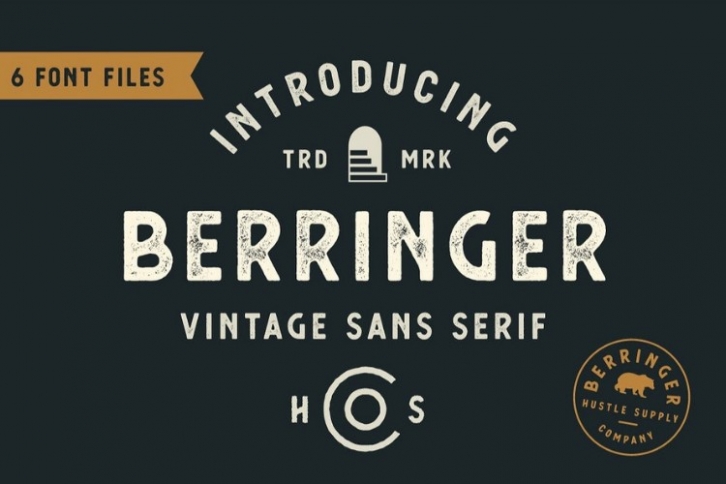
Berringer is a great font that was designed by Hustle Supply Co.. Imagine the amount of combinations you can create using this font! The archive is 20.13 MB and it was released on November 21, 2018. Berringer looks beautiful on wedding invitations, greeting cards, logos, posters, labels, t-shirt designs, logos, business cards and is perfect for use in ink or watercolor works, fashion, magazines, packaging and food menus, children's books and more!